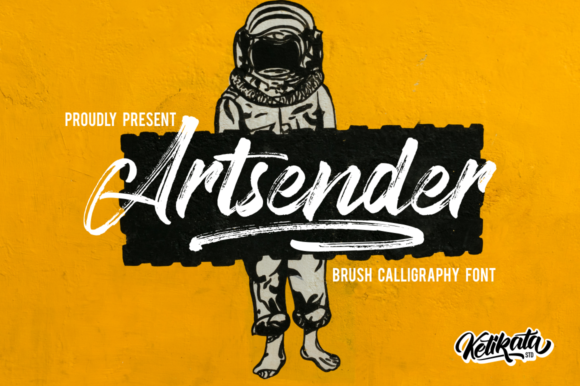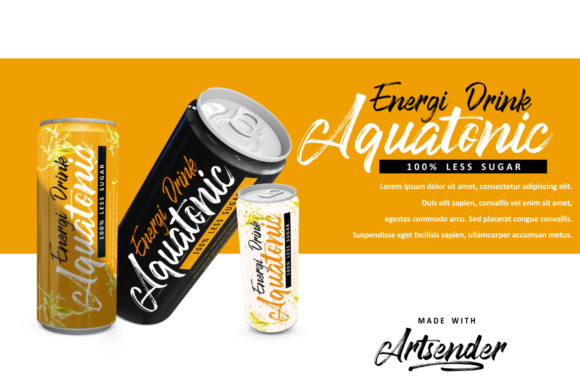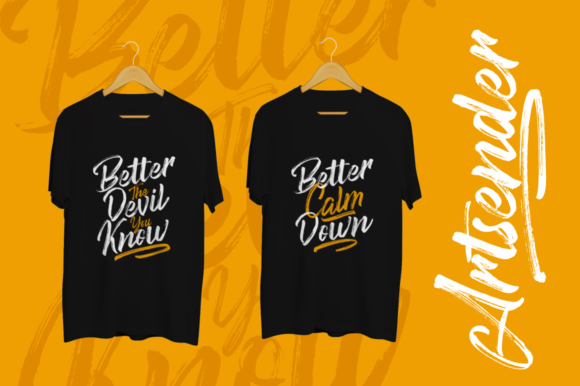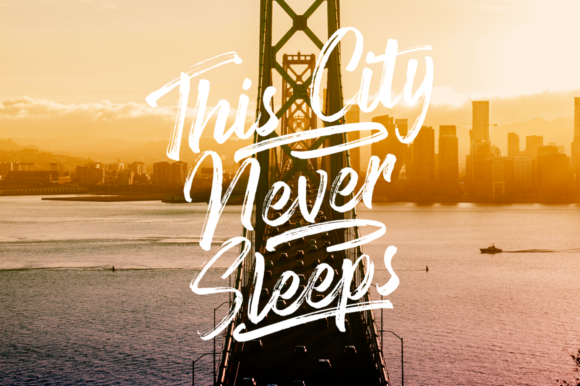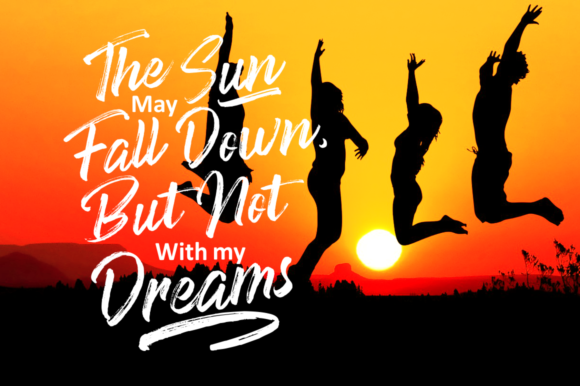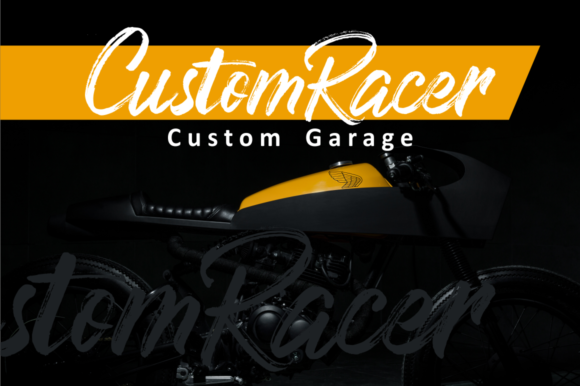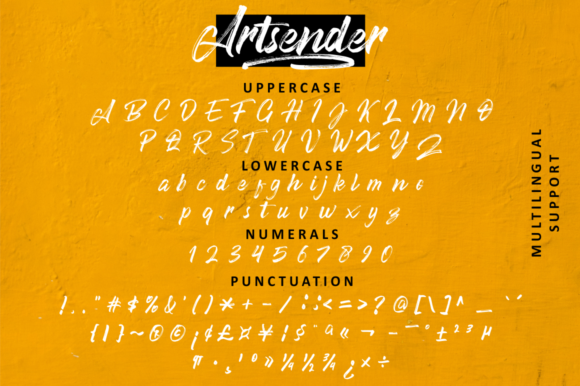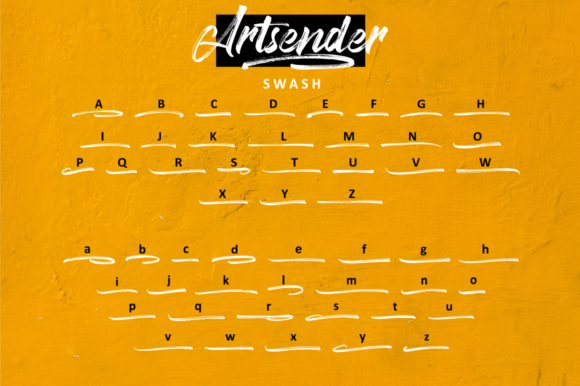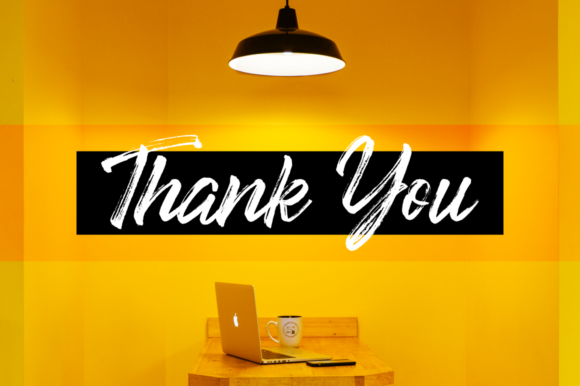
Artsender Font
About Artsender Font
Artsender is a casual, fun handwritten font, created by using a brush pen. Clean and a little bit quirky, this font is the perfect fit for all of your logos, branding, social media, and crafty DIY projects.